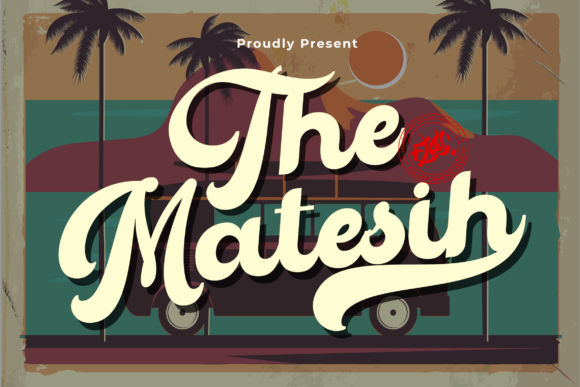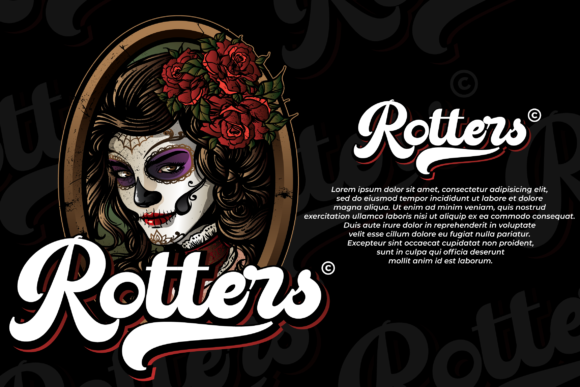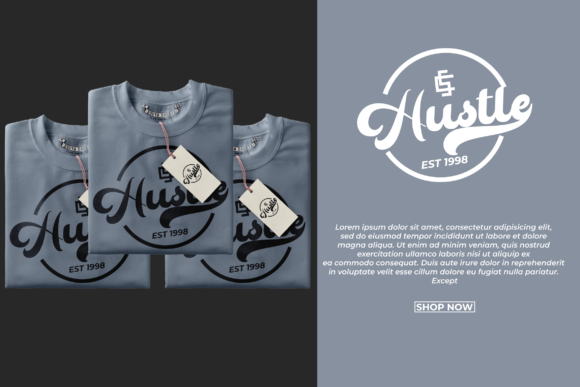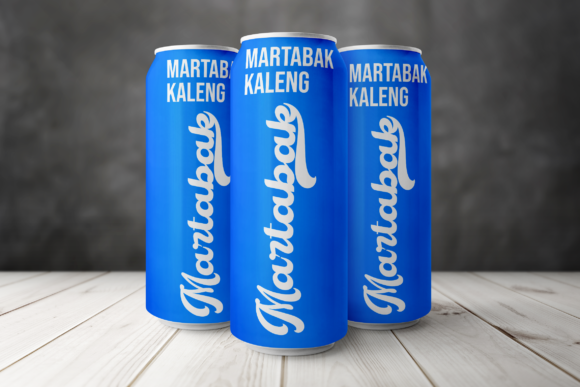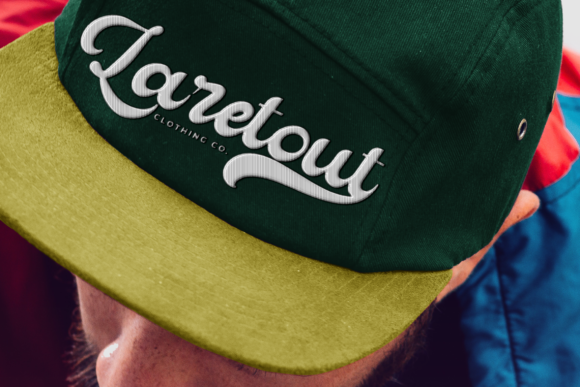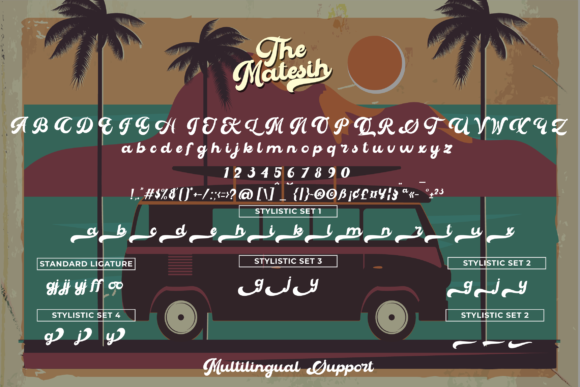
The Matesih Font
About The Matesih Font
The Matesih is a gorgeous script that delivers a nostalgic font experience. It evokes the classic style of the 70s, and will take any design idea to the next level!